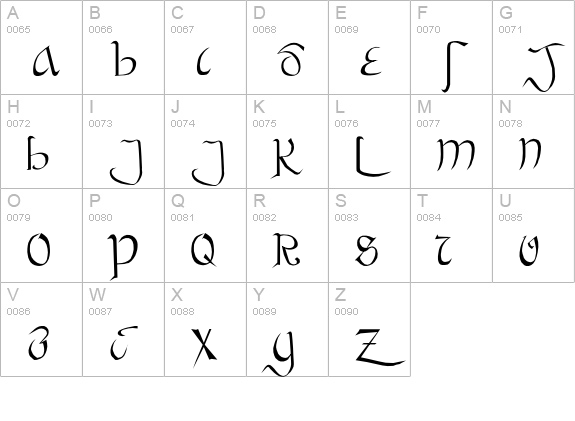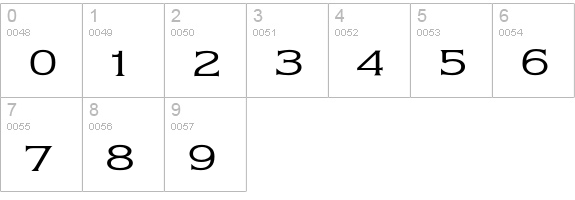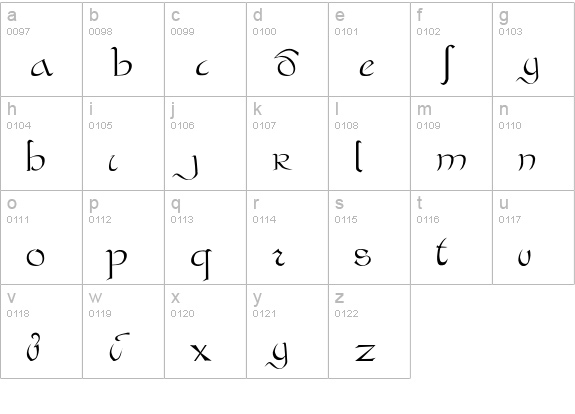
Bastarda Font Details
Bastarda font is a captivating and versatile typeface that exudes elegance and sophistication. With its unique blend of classic and modern design elements, Bastarda font is perfect for adding a touch of refinement to any project. Its sleek lines and stylish curves make it ideal for a wide range of applications, from branding to editorial design. What sets Bastarda font apart is not just its stunning aesthetics, but also its accessibility. This exquisite font is available for free download at FontsMarket.com, allowing designers and creatives to easily incorporate its beauty into their work without any cost. Whether you're designing a logo, crafting a poster, or creating a website, Bastarda font is sure to elevate your project and leave a lasting impression. Download it today and let its timeless charm inspire your next masterpiece.